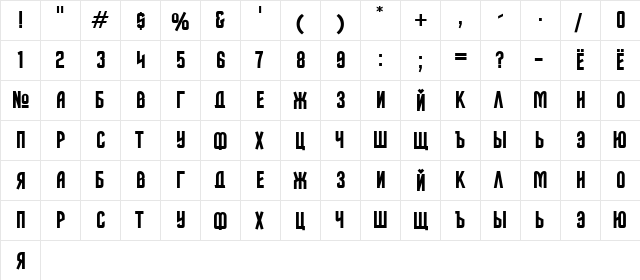
Final Regular
Design Context for Final Typeface
Final takes a measured approach to typography — its balanced proportions and neutral character make it a reliable workhorse for both digital and print work.